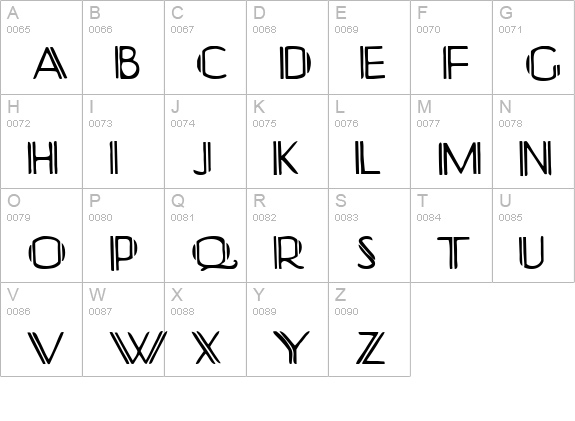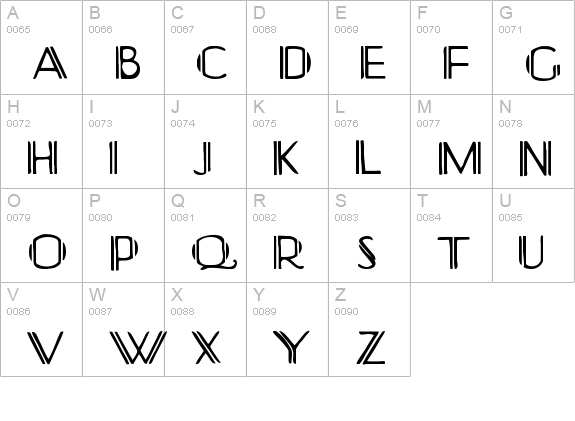
Yonkerismo Font Details
Yonkerismo font exudes a sense of modern elegance with its sleek lines and sophisticated curves. This versatile typeface is perfect for a wide range of design projects, from logo creation to editorial layouts. With its clean and contemporary aesthetic, Yonkerismo font adds a touch of refinement to any design. The best part? Yonkerismo font is available for free download at FontsMarket.com. This means you can easily access this stylish typeface and elevate your designs without breaking the bank. Don't miss out on the opportunity to enhance your projects with the distinctive charm of Yonkerismo font - download it today and let your creativity soar.